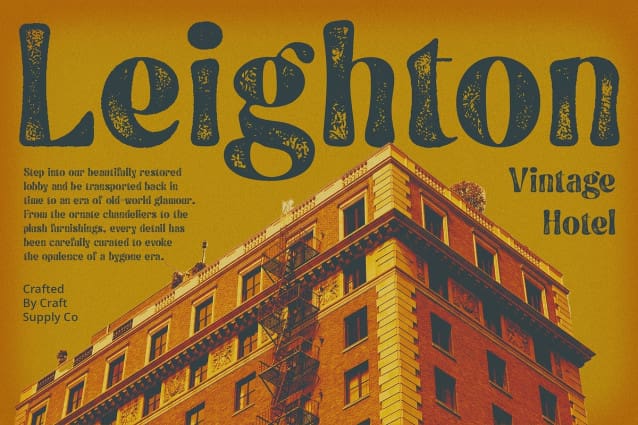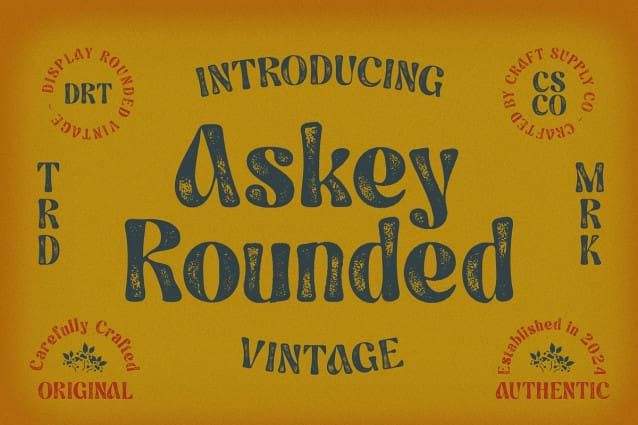
Askey Rounded Vintage Font
Askey Rounded Vintage Font: A Retro Bold Display Typeface. Bold and Funky Design Askey Rounded Vintage features a bold and funky display design with rounded shapes, exuding a playful and lively vibe. Its eye-catching appearance instantly grabs attention and adds a touch of fun to any project.
Vintage Stamp Roughness Infused with vintage charm, this typeface showcases rough drawn effects reminiscent of old-school stamp designs. These rough textures enhance its retro appeal, giving it a distinctive and nostalgic feel.
Versatile Retro Aesthetic With its bold rounded form and vintage-inspired roughness, This font is perfect for a wide range of applications. Whether used in posters, logos, or packaging, it brings a unique retro aesthetic to any design.
Capturing the Essence of Vintage This font captures the essence of vintage typography with its bold rounded shapes and rough textures. It adds character and personality to projects, transporting viewers back in time with its nostalgic charm.
Bold Retro Fun This font combines boldness, retro charm, and playful vibes in a single typeface. With its rounded shapes, funky design, and vintage stamp roughness, it offers a versatile and captivating option for designers looking to infuse their projects with a touch of retro flair.